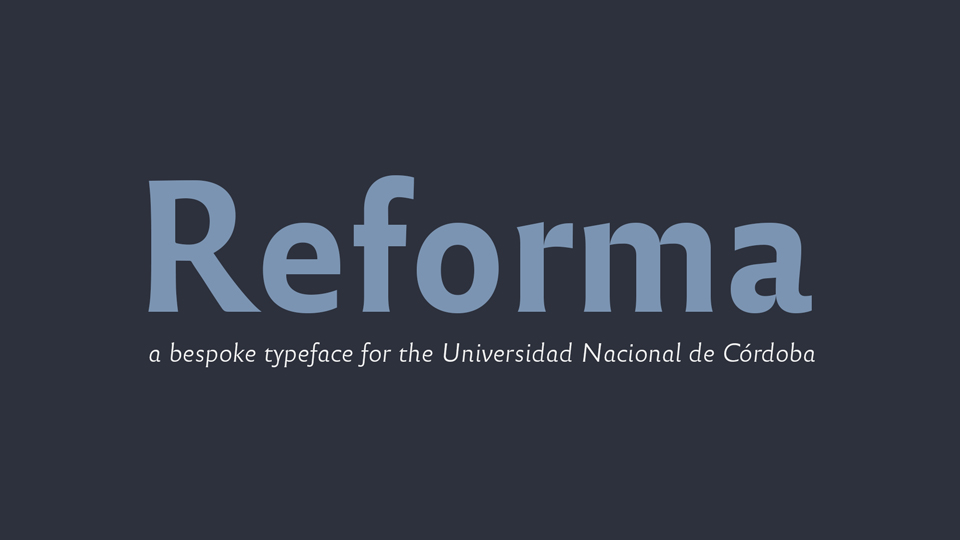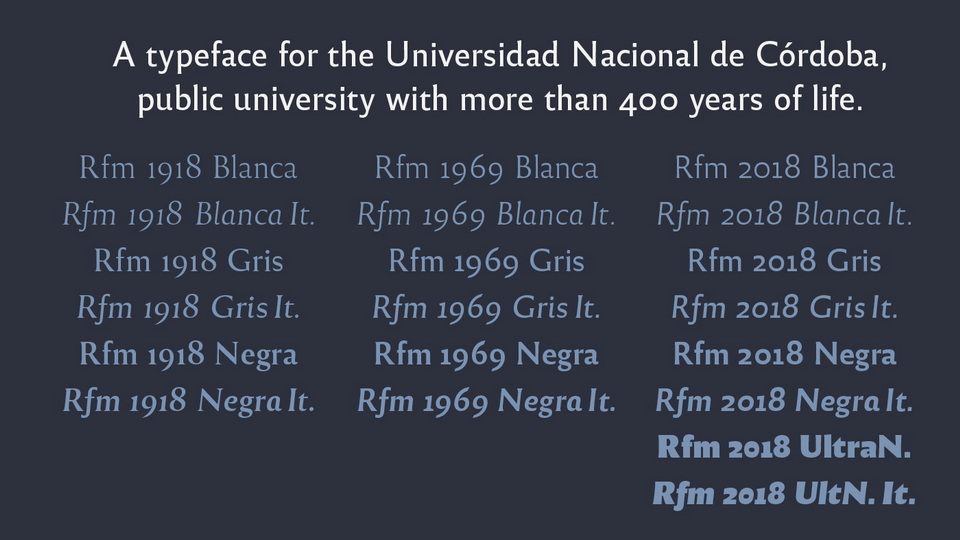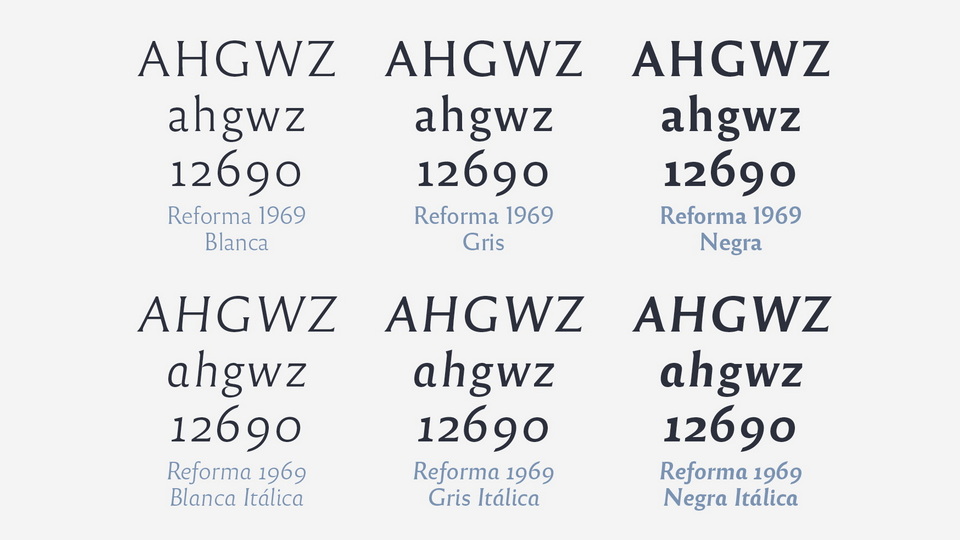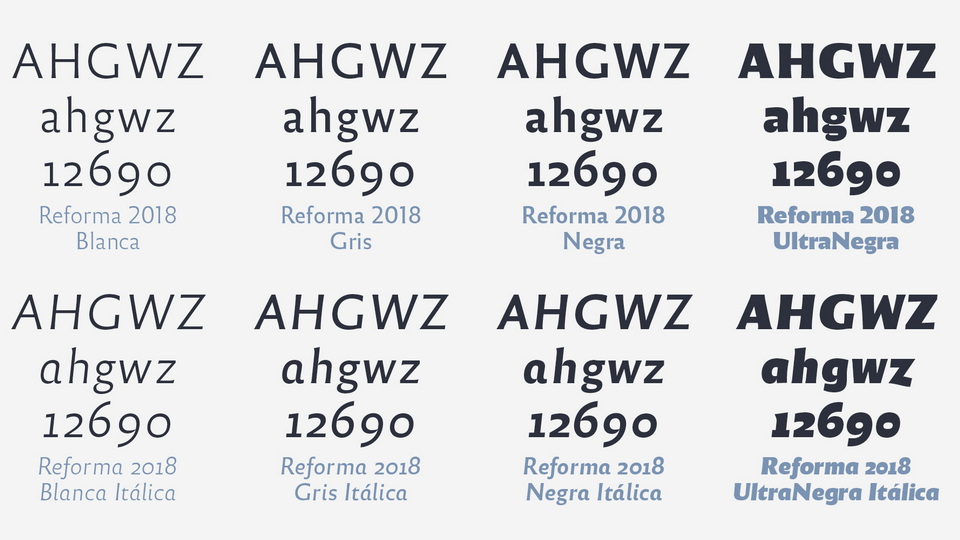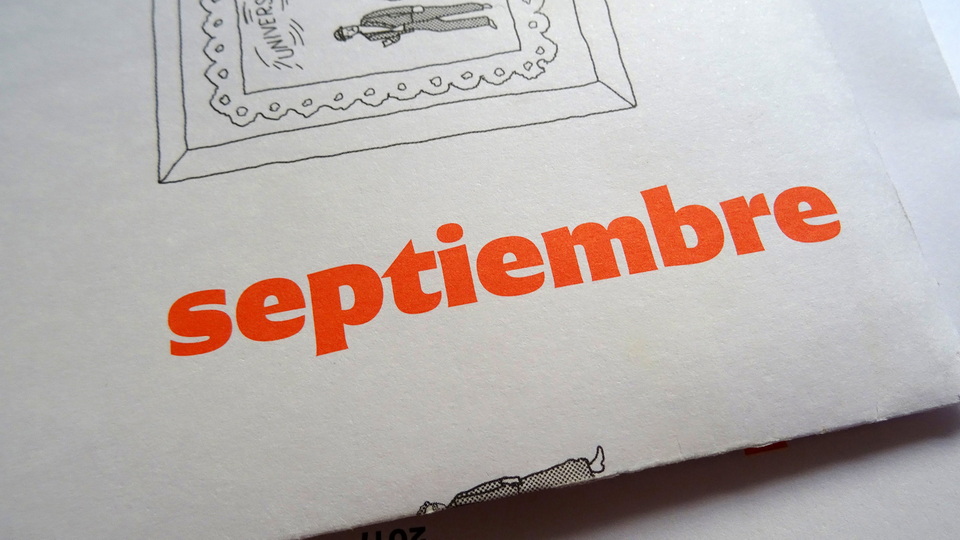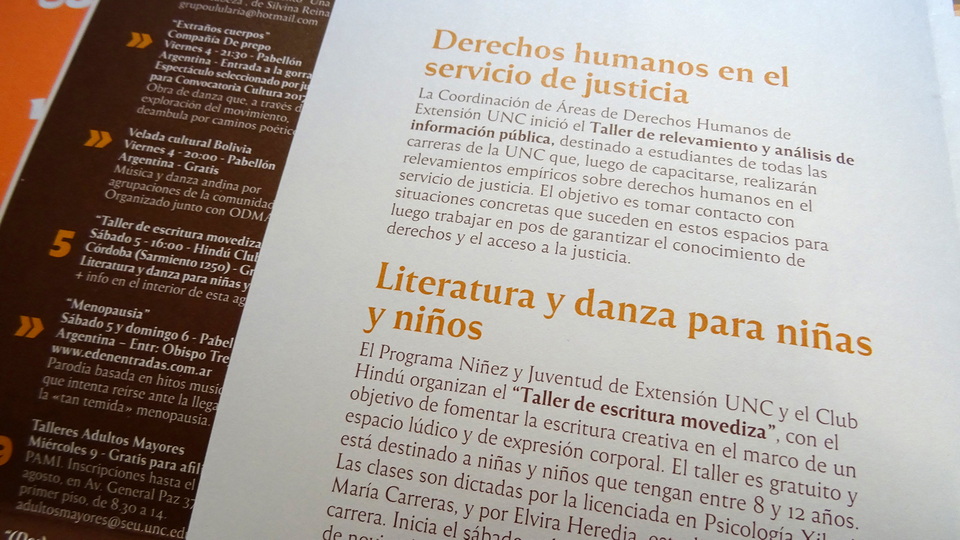
In order to celebrate the centenary of the University Reform, occurred in this house in 1918, the UNC hired us to create a bespoke type design. The new family had to convey, on one hand, the intellectual heritage of an institution of four hundred years, multifaceted protagonist in the history of the continent, and on the other the spirit of public education in nowadays’ Argentina, identified with values such as democracy, collective knowledge, horizontal exchange, equal opportunities.
The resulting design named ‘Reforma’ is a multistyle typeface composed of three subfamilies: Reforma 1918, Reforma 1969, and Reforma 2018. In respect to stroke modulation and overall anatomy, Reforma 1918 is the classic version, Reforma 2018 is the modern sanserif, and Reforma 1969 is an intermediate hybrid combining the virtues of the former two. All three styles behave finely in a wide range of bodies from display to immersive text.